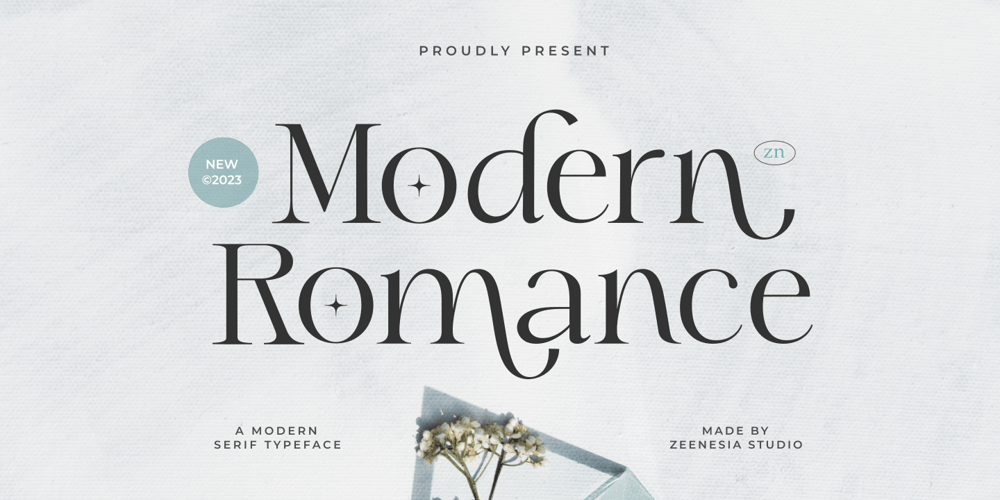
Modern Romance
Modern Romance font
Modern Romance Font Family was designed by Doni Purwoko and published by Zeenesia Studio. Modern Romance contains 1 styles and family package options. Modern Romance is a beautiful and modern serif font created with a romantic and lovely look.It’s a very versatile font that works great in large.Whether you’re using it for business project, digital design, presentations, or making greeting cards, this font has the potential to become your favorite go-to font, no matter the occasion!We hope you enjoy the font, please feel free to comment if you have any thoughts or feedback.Thanks for purchasing and glad to help you!